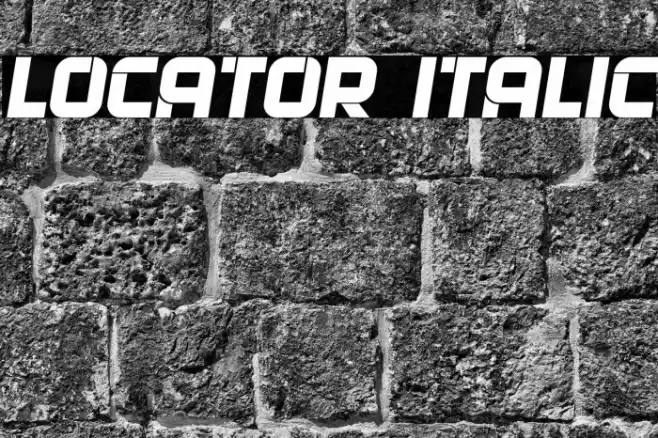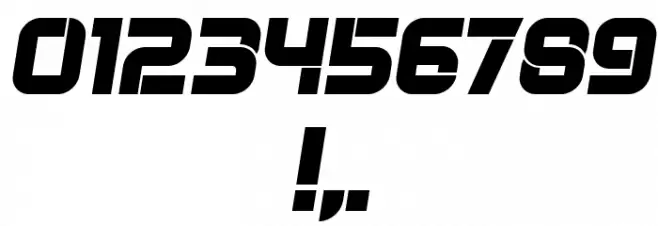
Locator Italic Font
Locator Italic Description
This font features a bold, italicized style with a futuristic and dynamic appearance. The characters are designed with sharp angles and a forward-leaning stance, giving a sense of motion and speed. The uppercase and lowercase letters maintain a consistent geometric structure, while the numbers and special characters complement the overall aesthetic. The font's unique cuts and slants add a distinctive edge, making it stand out in any design. Its boldness ensures high visibility, making it suitable for impactful headlines and attention-grabbing text.
A bold, italicized font with a futuristic and dynamic design from Uncategorized fonts.
- Proposed Projects: Ideal for sports branding, technology logos, futuristic posters, and dynamic advertisements.